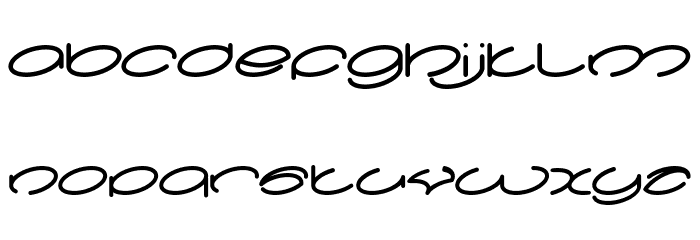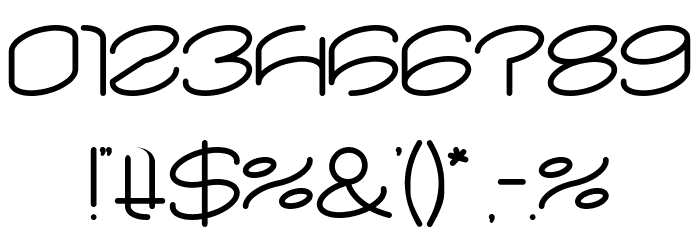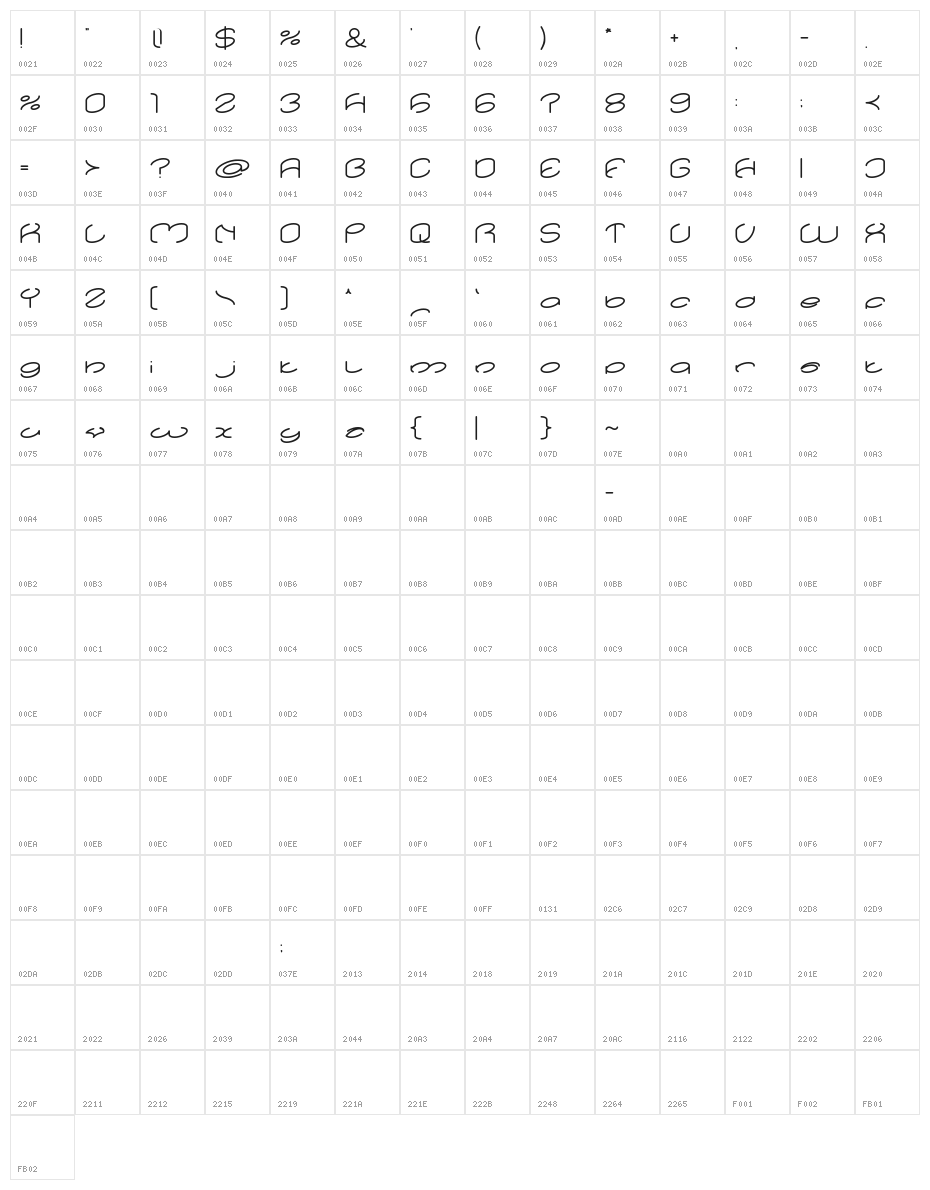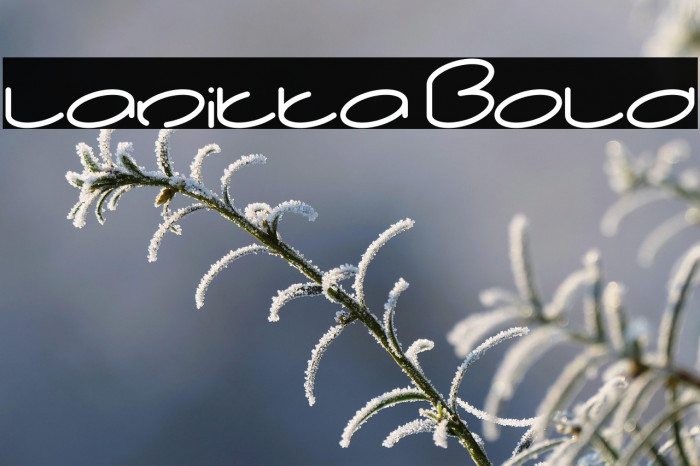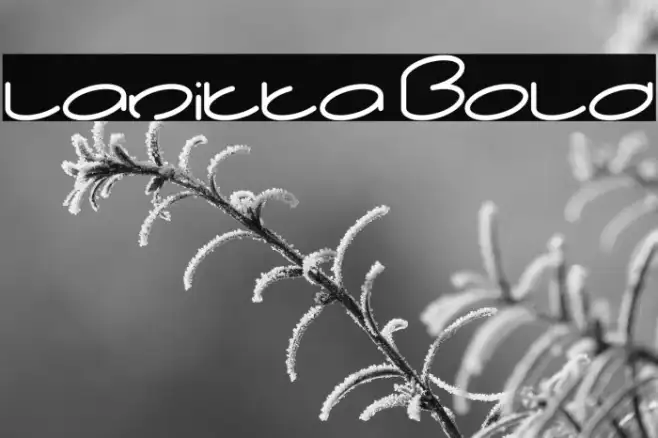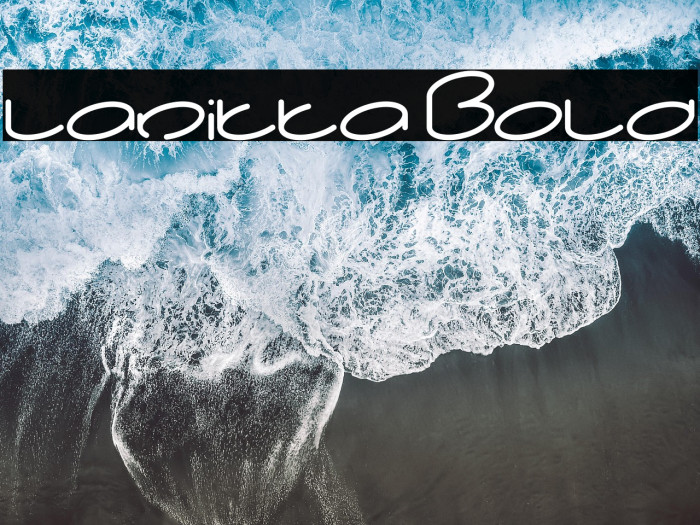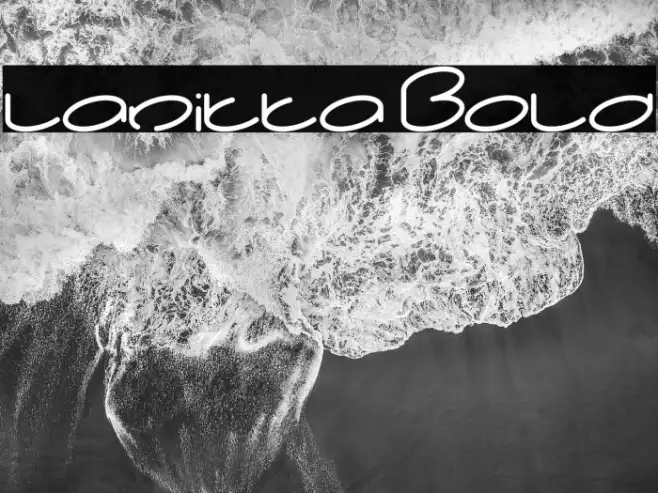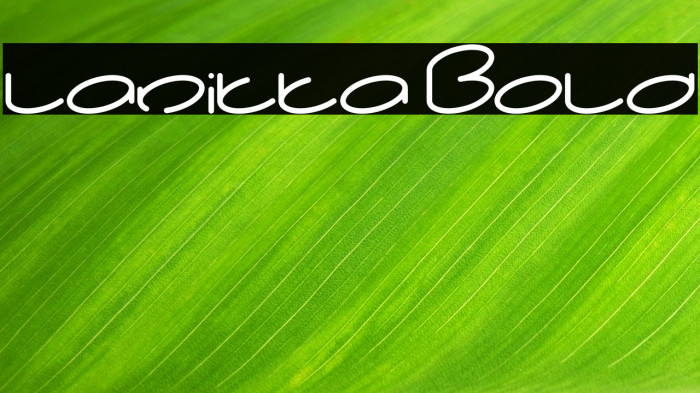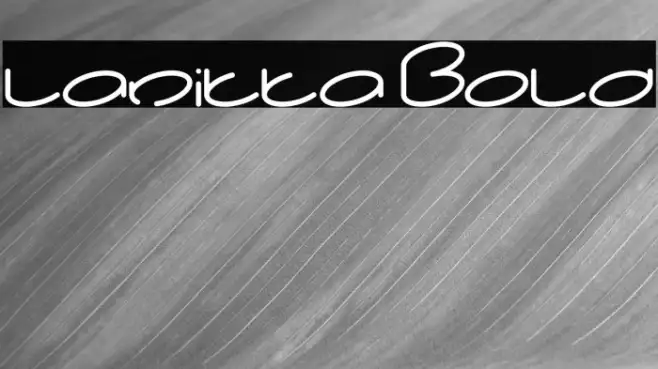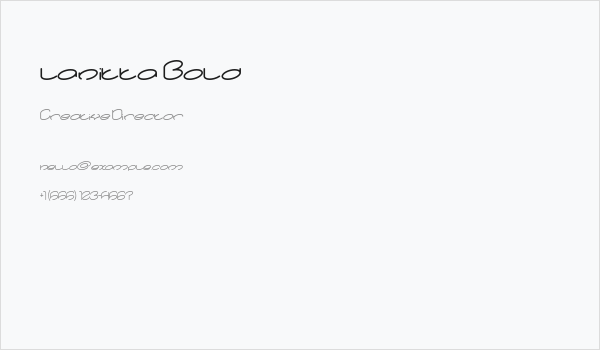
lanitta Bold Font
This font features a unique and modern design with a futuristic flair. The characters are composed of smooth, continuous lines that create a sense of fluidity and motion. Uppercase letters are bold and striking, with rounded edges that soften their appearance. Lowercase letters maintain the same fluid style, offering a cohesive look across the alphabet. Numbers and special characters are designed with the same attention to detail, ensuring consistency throughout. The overall aesthetic is both playful and sophisticated, making it suitable for a variety of creative applications.
A modern, fluid font with a futuristic and cohesive design.
- Proposed Projects: Ideal for branding, logos, tech-related projects, and modern advertising campaigns.
- Use Case: Logos, Headlines, Branding